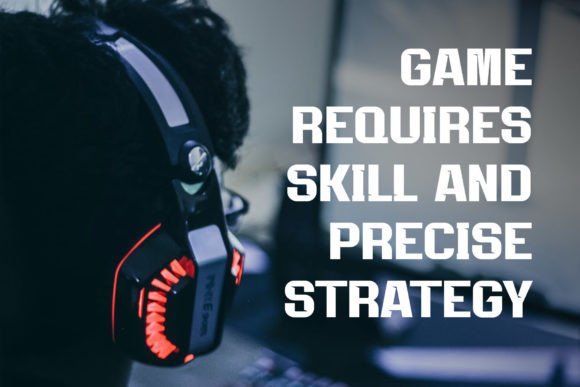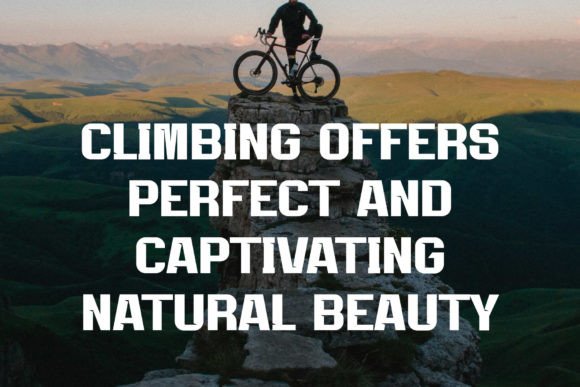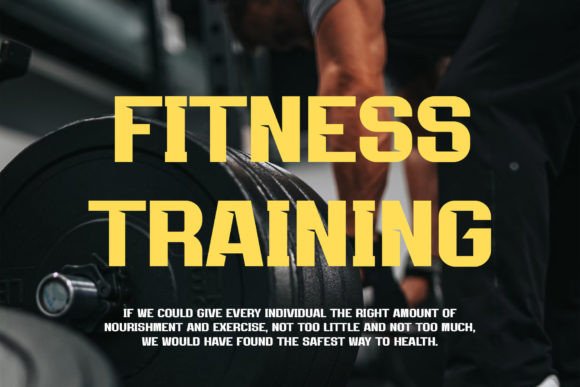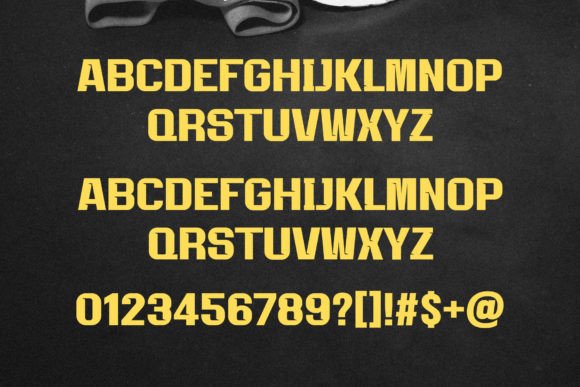
Introduction to Games Font
Have you ever found yourself staring at a blank canvas, searching for the perfect design element to bring your creative project to life? As a designer, we’ve all been there – that moment of inspiration when everything clicks into place. For me, it was discovering the Games Font, a stunning minimalist logo that sparked an idea for a new design concept.
The Games Font is a versatile and elegant design resource, perfect for a wide range of creative projects. Its high-quality design makes it a valuable addition to any designer’s toolkit, offering a clean and sophisticated look that’s sure to impress. With its transparent background, the Games Font is incredibly versatile and can be easily integrated into various design elements, from logos to brochures and beyond.
Key Features of Games Font
- High-quality design resource for creative projects, ideal for use in games, animations, and other interactive media.
- Features a transparent background, allowing for seamless integration into any design or game environment.
- Includes a large character set, covering a wide range of languages and alphabets, making it a versatile choice for global audiences.
- Designed with a unique, futuristic aesthetic, setting it apart from more traditional font styles and making it a great choice for innovative and cutting-edge projects.
Honest Review: Games Font
I recently came across the Games Font and I must say, it’s a great addition to any designer’s toolkit. As a design resource, it offers a high quality and unique aesthetic that can elevate any creative project.
The font itself is clean and modern, with a transparent background that makes it easy to use in various design contexts. I particularly like the way it looks on gaming-related designs, but it can also be used for other purposes such as branding or marketing materials.
Here are some things that work well with the Games Font:
- ✨ High quality and unique design
- ✨ Clean and modern aesthetic
- ✨ Transparent background for easy use
- ⚠️ Limited character set (may not be suitable for complex text)
- ⚠️ Not suitable for body text (best used for headings and titles)
Overall, I’m impressed with the Games Font and I think it’s a great resource for designers who are looking for a unique and high-quality font. While it may have some limitations, it’s definitely worth checking out.
Tips for Getting the Most Out of Games Font
For a seamless design experience, use Games Font on a transparent background to create a clean and modern look. You can also use it in combination with other design resources to create a unique and creative project.
Common Use Cases for Games Font
Games Font is perfect for designing game-related materials, such as game menus, character designs, and level layouts. You can also use it in other creative projects, like logos, posters, and infographics.